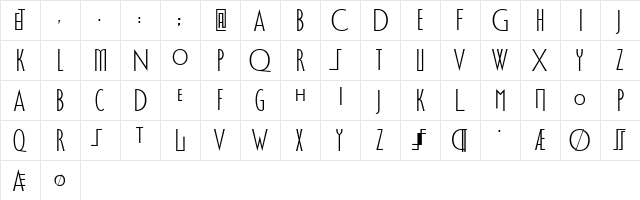
VereDignum LT Std Alternate Regular
| Foundry | Linotype Library GmbH |
| Designer | Phil Baines |
Design Context for VereDignum LT Std Alternate Typeface
VereDignum LT Std Alternate is a composed and adaptable typeface that performs quietly and consistently across a wide range of design contexts. The delicate stroke weight brings airiness and refinement to layouts.